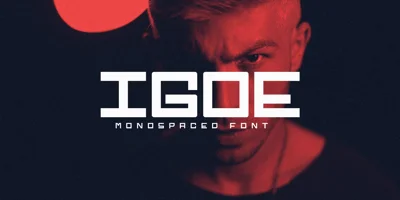
Igoe Font
Igoe Font is perfect for modern tech interfaces, contemporary corporate branding, sleek product packaging, innovative startup identities, minimalist design projects, progressive digital platforms, clean architectural signage, and sophisticated professional communications.
Igoe Font is exciting because it embodies the perfect balance of modern functionality and timeless elegance through its refined character design that seamlessly bridges contemporary digital requirements with classic typographic principles. Its clean styling and versatile appeal make it the perfect choice for brands that want to communicate reliability, innovation, and the confident sophistication of modern professional excellence.
Igoe Font family includes multiple professional variations: Igoe Thin, Igoe Light, Igoe Regular, Igoe Medium, Igoe Bold, and Igoe Black, along with condensed and extended versions, providing designers with comprehensive tools for creating sophisticated modern and professional brand experiences.
When exploring contemporary professional typography solutions, Igoe Font emerges as the premier choice for designers working on corporate and tech projects that require genuine modern sophistication and professional appeal. This versatile typeface embodies the essence of contemporary design while offering the technical precision that modern businesses and technology companies require. The font's clean character and professional authenticity create immediate connections with audiences who appreciate functional elegance and reliable performance.
Professional designers consistently rely on Igoe Font for projects requiring authentic modern sophistication and powerful professional appeal. Its expertly engineered letterforms feature contemporary influences that work exceptionally well in both large-scale corporate headquarters displays and intimate business communication materials. The font's ability to convey competence and modern elegance while maintaining perfect readability makes it invaluable for comprehensive brand identity systems in the corporate services, technology, and professional consulting sectors.
Whether you're developing corporate identities, creating tech startup marketing materials, or designing professional presentation systems, Igoe Font delivers the authentic modern character and professional appeal that resonates with audiences who appreciate contemporary design and business excellence. Its professional significance and clean design ensure your projects communicate cutting-edge competence while maintaining timeless standards that attract modern clients and business decision-makers.